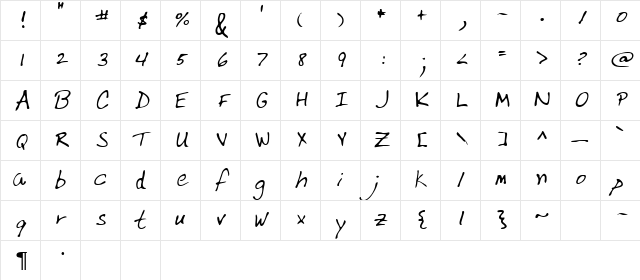
Varnell Regular
Varnell Family
Design Context for Varnell
Varnell is a composed and adaptable typeface that performs quietly and consistently across a wide range of design contexts.